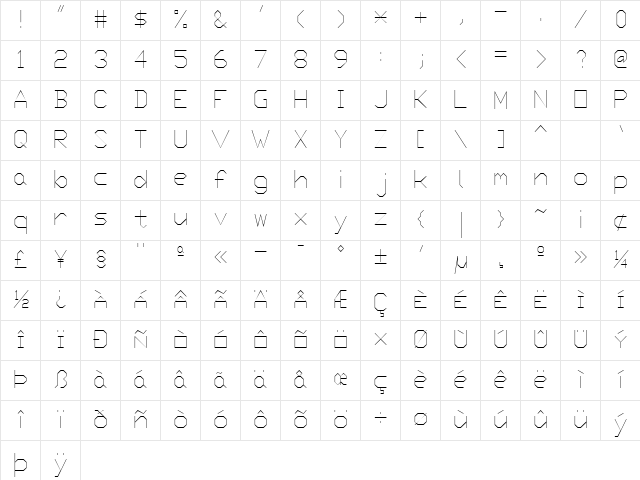
Prx6 Regular
Design Context for Prx6
Prx6 is a composed and adaptable typeface that performs quietly and consistently across a wide range of design contexts.